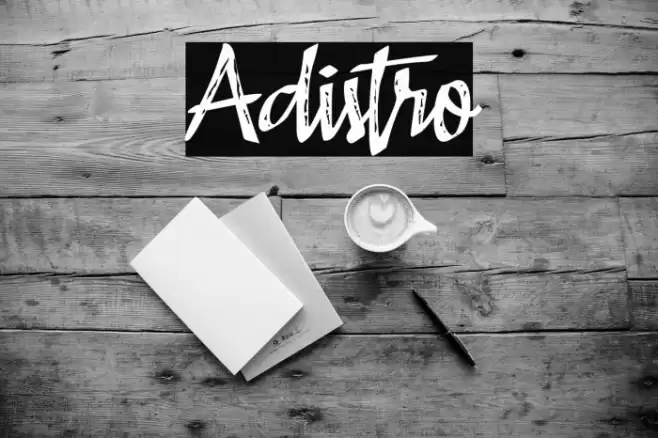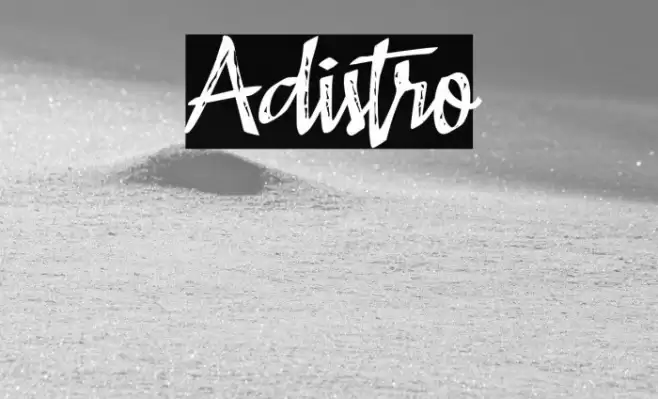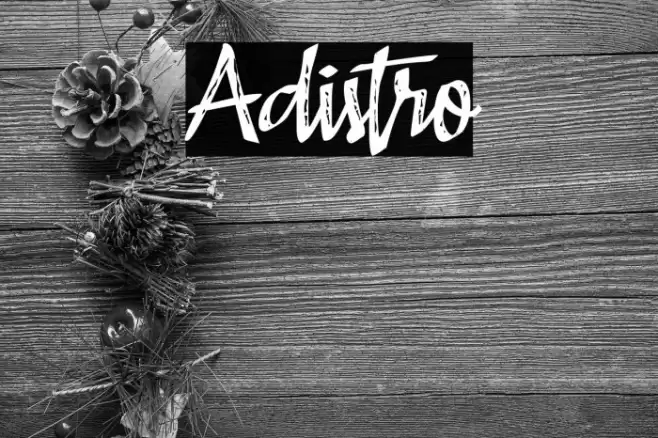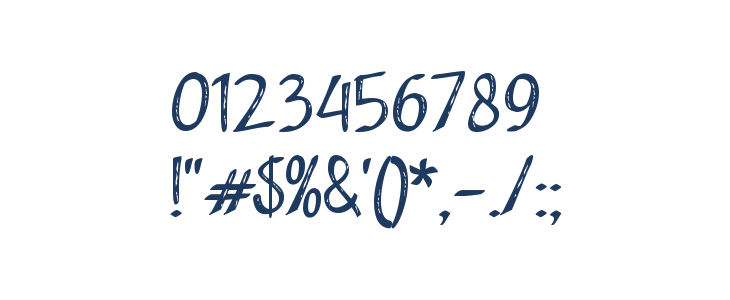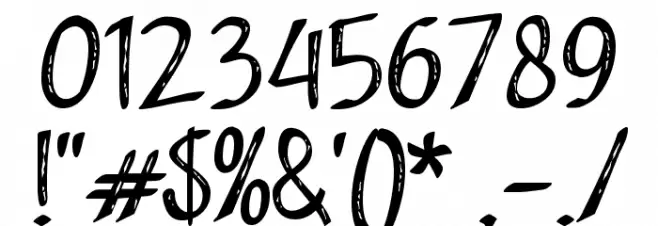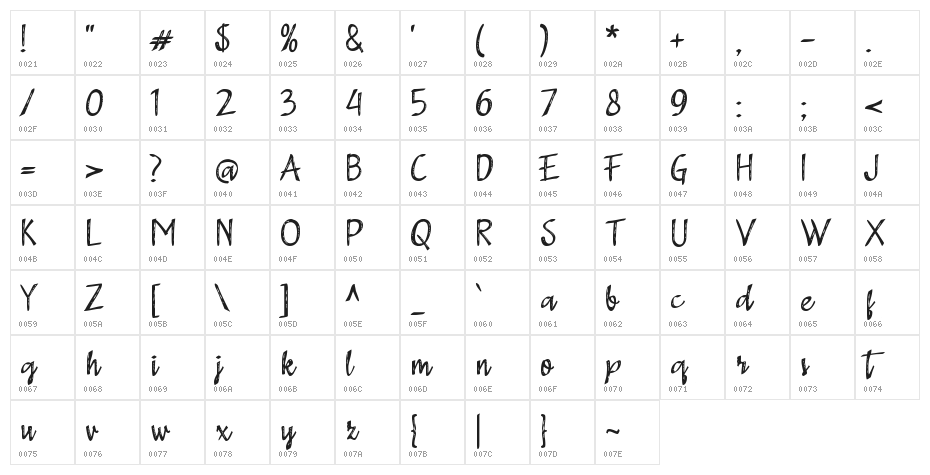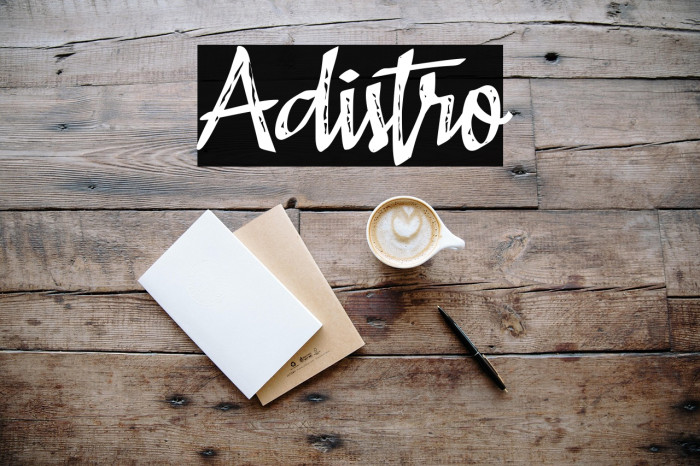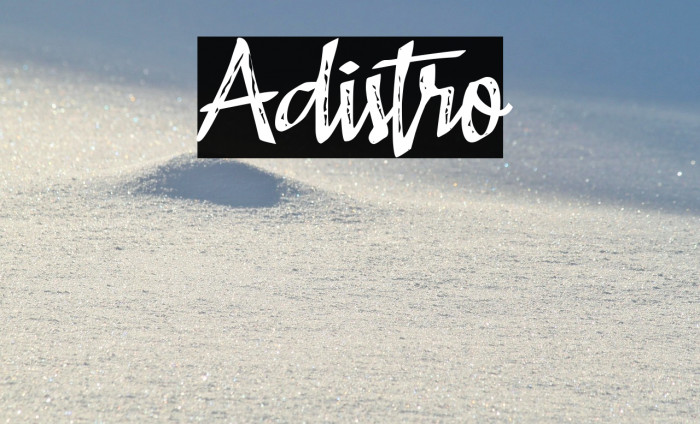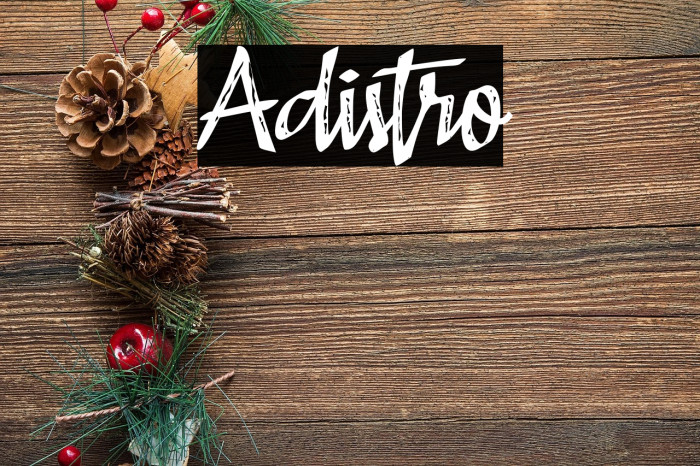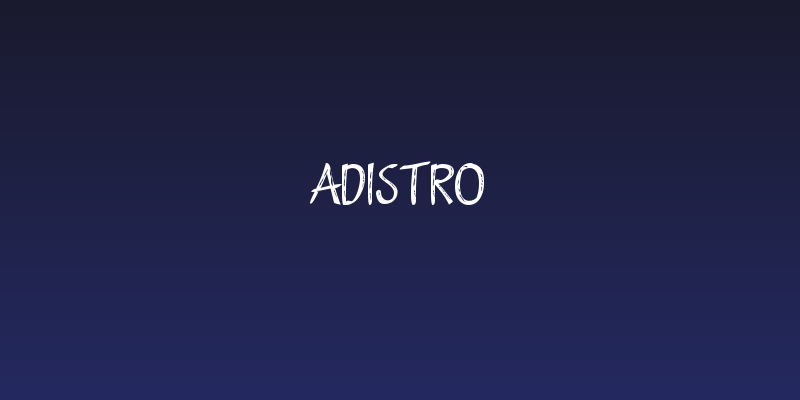
Adistro Font
Adistro Description
This font features a dynamic and expressive handwritten style, characterized by its bold, brush-like strokes and slightly irregular letterforms. The uppercase letters are tall and commanding, while the lowercase letters maintain a fluid and connected appearance, adding to the overall casual and artistic feel. The numerals and special characters are consistent with this style, offering a playful yet legible appearance. The font's unique texture and lively character make it stand out, providing a sense of creativity and spontaneity.
A bold, expressive handwritten font with brush-like strokes from Uncategorized fonts.
- Proposed Projects: Ideal for creative projects such as posters, invitations, branding, and social media graphics where a personal and artistic touch is desired.